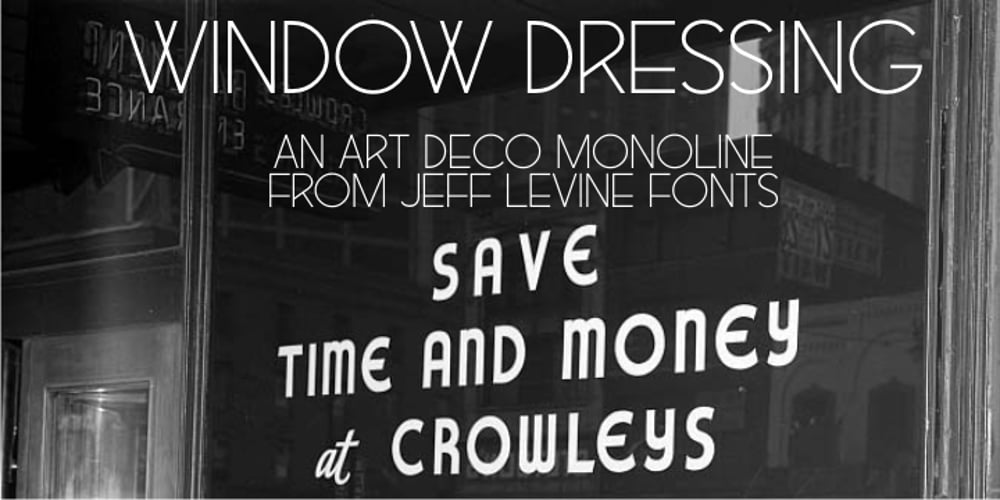
Window Dressing JNL Font Family was designed by Jeff Levine and published by Jeff Levine. Window Dressing JNL contains 1 styles and family package options. A picture of some cast metal letters in a 1950s architectural signage catalog was the basis for Window Dressing JNL. The clean, simple lines as well as the unusual letter form of the B and R inspired this digital interpretation.